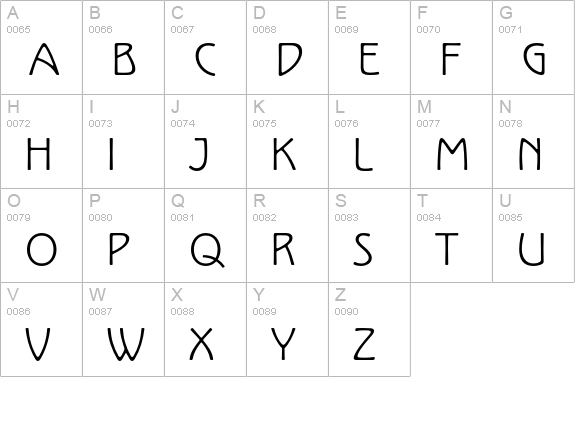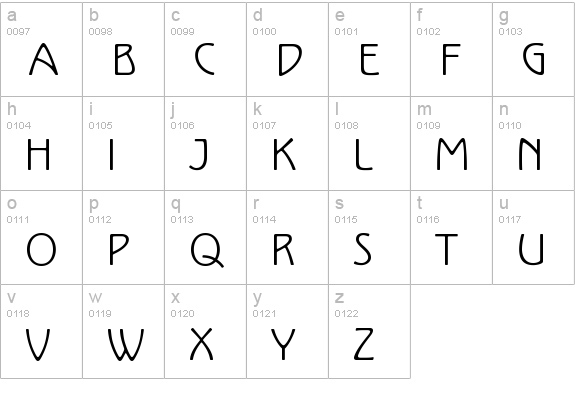
Kolo LP Std Font Details
Kolo LP Std is a modern and stylish font that exudes elegance and sophistication. Its sleek lines and rounded edges make it perfect for a wide range of design projects, from branding to editorial design. This versatile typeface offers a unique combination of classic and contemporary elements, making it suitable for both print and digital applications. What sets Kolo LP Std apart is not only its stunning aesthetics but also the fact that it is available for free download at FontsMarket.com. This means that designers and creatives can access this high-quality font without any cost, making it a valuable addition to their font library. Whether you are working on a logo, website, or marketing materials, Kolo LP Std is sure to elevate your design and make a lasting impression. Download this outstanding font today and take your projects to the next level.